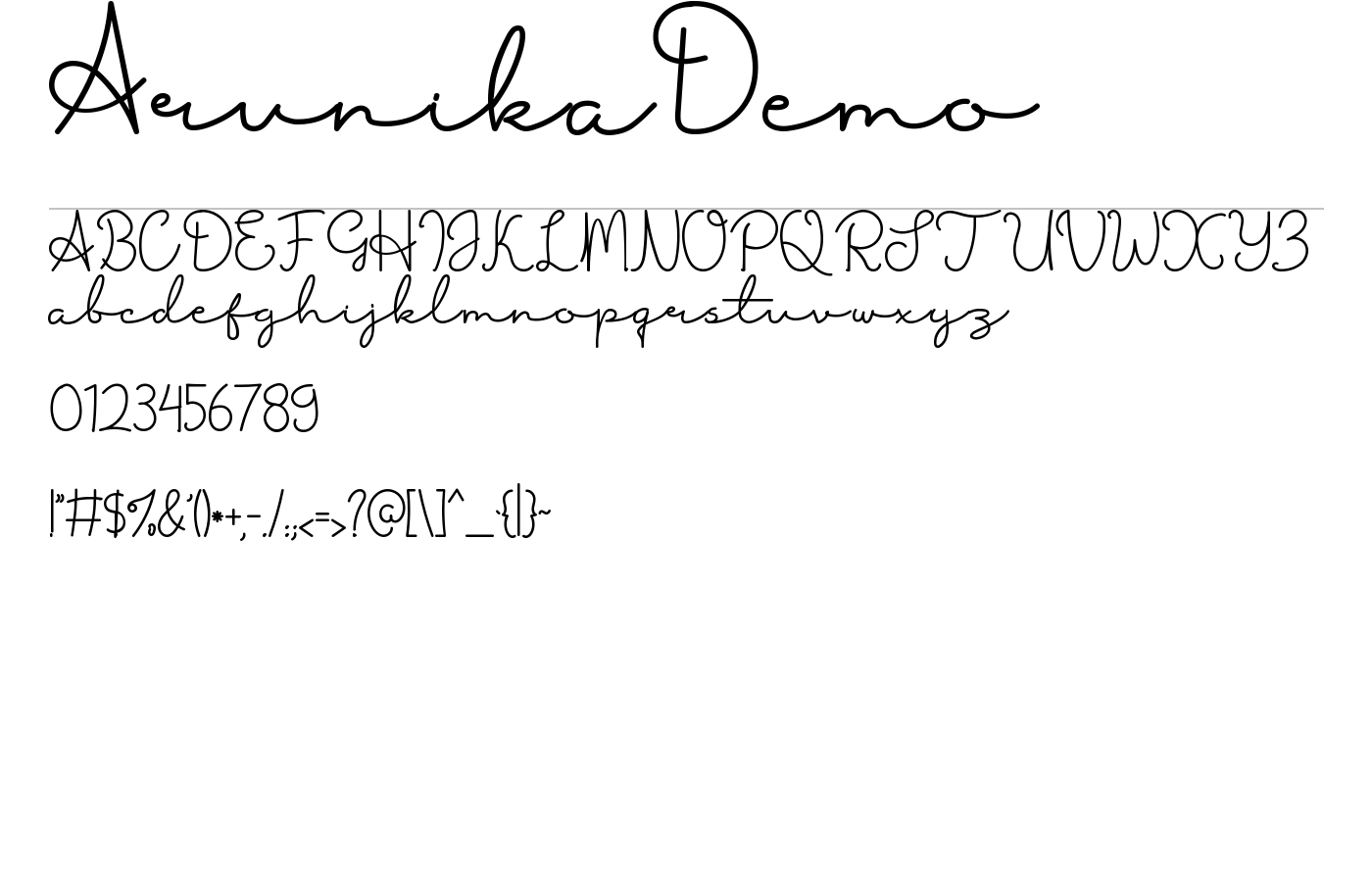
ArunikaDemo is a delicate, light-weight script font with a handwritten, whimsical feel, featuring fine, consistent strokes and distinctive loops especially in its uppercase characters. Its elegant, airy style makes it perfect for creative branding, invitations, and feminine or artistic design projects that seek a personal, graceful touch. This font works best in display uses like logos and headlines where its unique charm can shine.
ArunikaDemo Font
About ArunikaDemo Font
| Font family | ArunikaDemo Font |
| Designer | Mustofa Nur Sidiq |